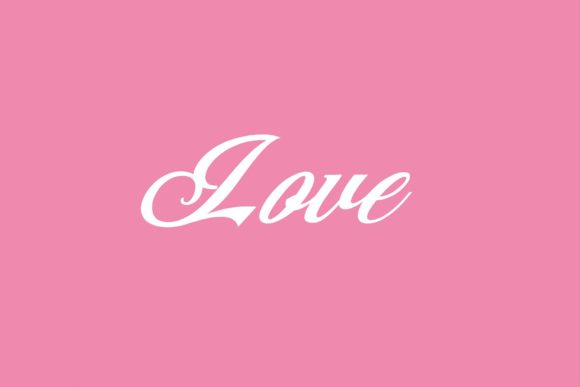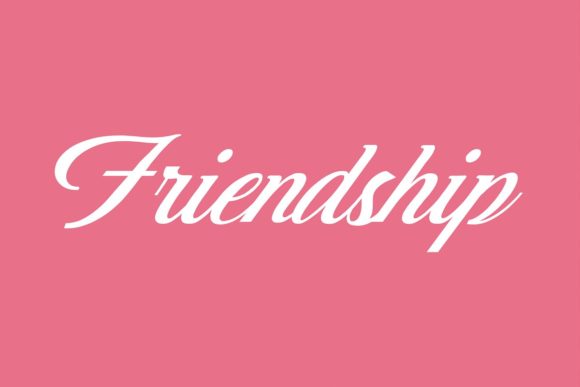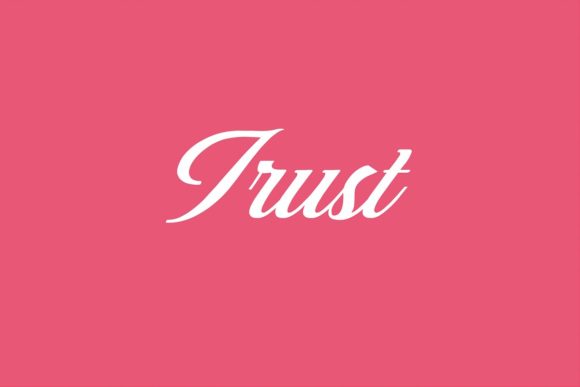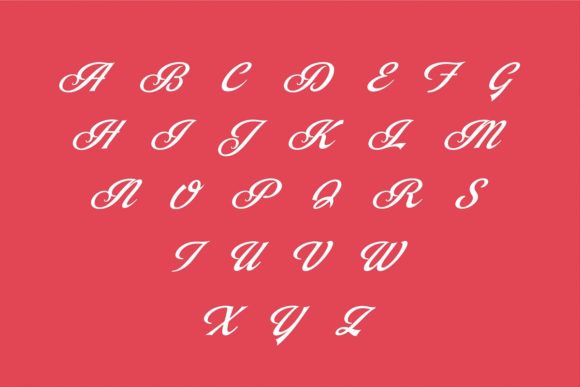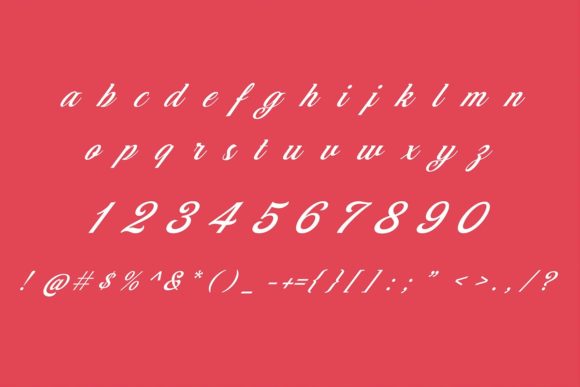
Discover the Charming Emely Font: A Friendly Script with a Striking Energy
Are you on the hunt for a font that exudes warmth, friendliness, and a touch of elegance? Look no further than the Emely font, a stunning script that is sure to capture your heart. Emely is an incredibly lovely script with a friendly feel, making it perfect for a wide range of design projects. In this article, we’ll dive into the world of Emely, exploring its unique characteristics, uses, and benefits.
The Allure of Emely Font
Emely font is a beautifully crafted script that boasts a distinctive, energetic vibe. Its letters are designed to flow smoothly, creating a sense of movement and fluidity. This makes Emely perfect for designs that require a touch of dynamism, such as logos, branding materials, and social media graphics.
One of the standout features of Emely is its friendly feel. The font’s curves and lines are carefully crafted to create a sense of approachability and warmth, making it ideal for projects that require a personal touch. Whether you’re designing a website, brochure, or invitation, Emely is sure to make your content feel welcoming and engaging.
Key Characteristics of Emely Font
So, what makes Emely font so special? Here are some of its key characteristics:
- Unique lettering style: Emely features a distinctive lettering style that sets it apart from other scripts.
- Flowing curves: The font’s curves and lines are designed to flow smoothly, creating a sense of movement and energy.
- Friendly feel: Emely’s friendly feel makes it perfect for projects that require a personal touch.
- Highly legible: Despite its script style, Emely is highly legible, making it suitable for body text and headlines.
Uses for Emely Font
Emely font is incredibly versatile, making it suitable for a wide range of design projects. Here are some ideas to get you started:
- Logos and branding: Emely’s unique style makes it perfect for logos, business cards, and other branding materials.
- Social media graphics: Add a touch of personality to your social media graphics with Emely’s friendly, energetic vibe.
- Invitations and events: Emely is ideal for invitations, wedding stationery, and other event-related designs.
- Web design: Use Emely to add a touch of elegance and sophistication to your website.
Benefits of Using Emely Font
So, why choose Emely font for your next design project? Here are some benefits to consider:
- Stand out from the crowd: Emely’s unique style ensures that your design will stand out from the crowd.
- Convey a friendly tone: Emely’s friendly feel makes it perfect for projects that require a personal touch.
- Easily legible: Despite its script style, Emely is highly legible, making it suitable for body text and headlines.
- Versatile: Emely can be used for a wide range of design projects, from logos to web design.
In conclusion, Emely font is an incredibly lovely script with a friendly feel that’s sure to capture your heart. Its unique lettering style, flowing curves, and highly legible design make it perfect for a wide range of design projects. Whether you’re a designer, crafter, or DIY enthusiast, Emely is a great choice for anyone looking to add a touch of elegance and sophistication to their designs. So why not fall in love with Emely’s striking energy and make it a part of your design toolkit?